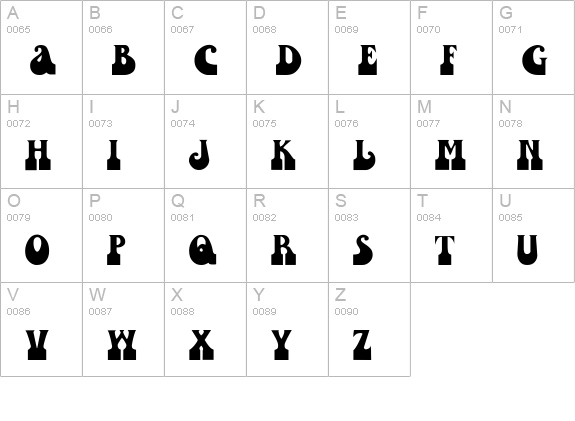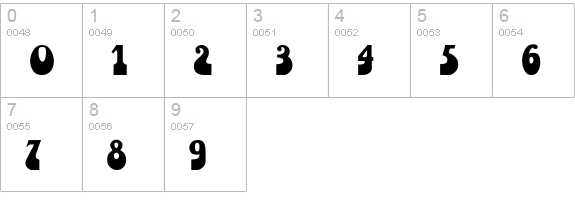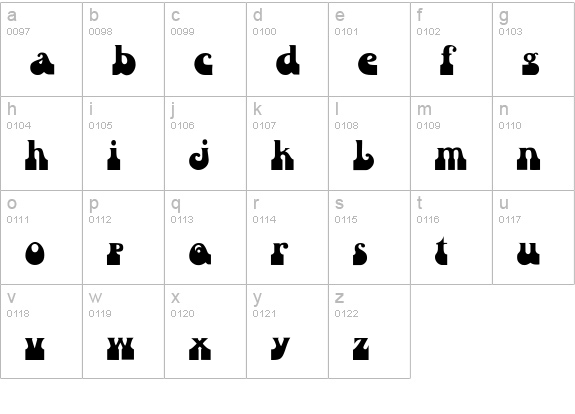
Inkwell Font Details
Introducing Inkwell font, a captivating typeface that effortlessly combines elegance and modernity. Perfect for adding a touch of sophistication to any project, Inkwell is sure to make a lasting impression. With its bold yet graceful letterforms and intricate details, this font is a true work of art. But what sets Inkwell apart from other fonts is its unique feature - it's free! That's right, you can download this stunning font for free at FontsMarket.com. Whether you're a designer looking for the perfect font for your next project or an individual wanting to add a touch of style to your personal documents, Inkwell is the ideal choice. With its wide range of characters, including uppercase letters, lowercase letters, numbers, and punctuation marks, Inkwell offers endless possibilities for creative exploration. From branding and packaging to invitations and social media graphics, this versatile font can be used in a variety of contexts, ensuring that your designs always stand out. The attention to detail in Inkwell is truly remarkable. Each letter is meticulously crafted, with every curve and stroke thoughtfully designed to create a harmonious and visually appealing composition. The result is a font that exudes elegance and sophistication, making it perfect for upscale projects and high-end brands. In addition to its aesthetic appeal, Inkwell also offers excellent readability, ensuring that your message is conveyed clearly and effectively. Its clean lines and well-defined letterforms make it easy to read even at smaller sizes, making it suitable for both print and digital media. So why wait? Download Inkwell font for free today at FontsMarket.com and unlock a world of design possibilities. Whether you're a professional designer or simply someone who appreciates beautiful typography, Inkwell is sure to become a valuable addition to your font collection. Don't miss out on this incredible opportunity to elevate your designs with a font that combines elegance, modernity, and affordability.